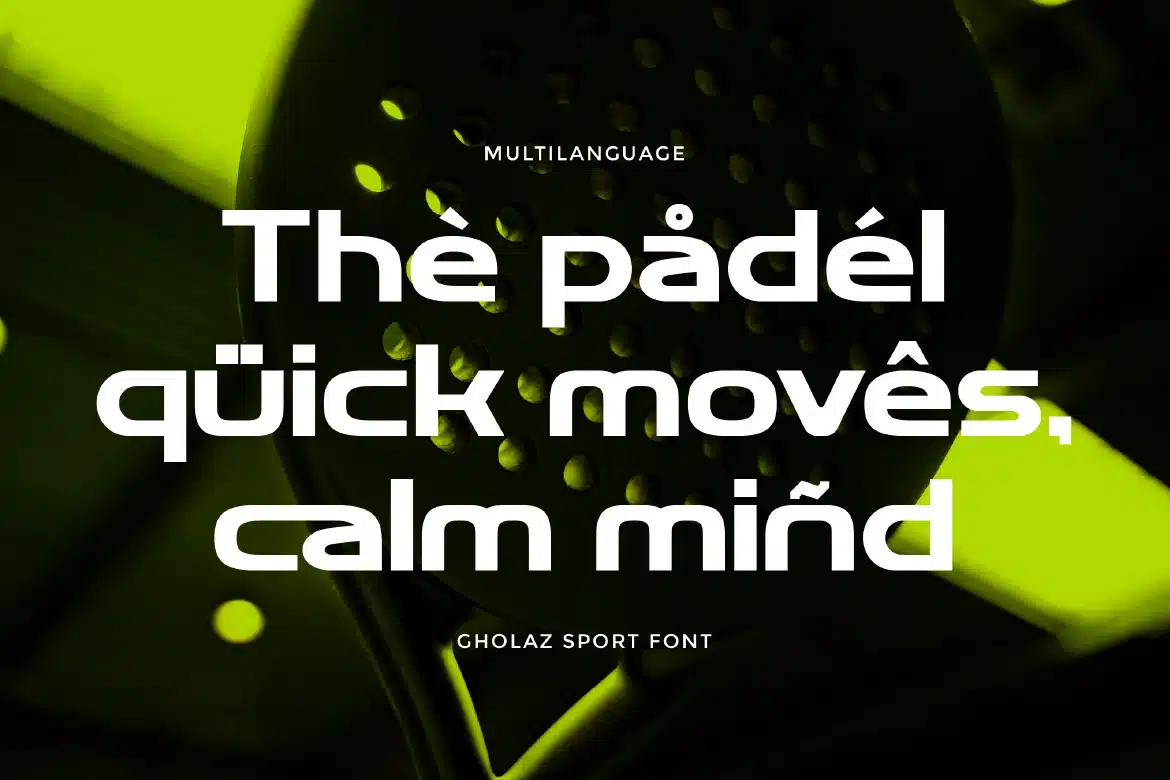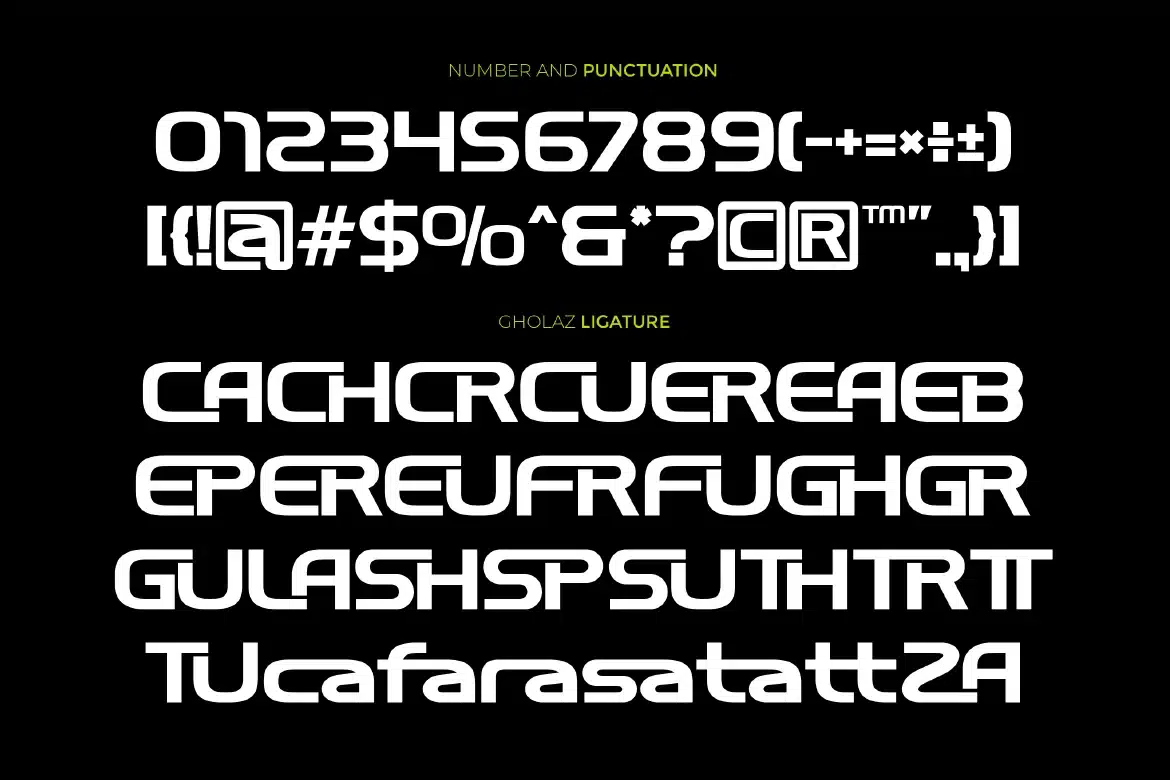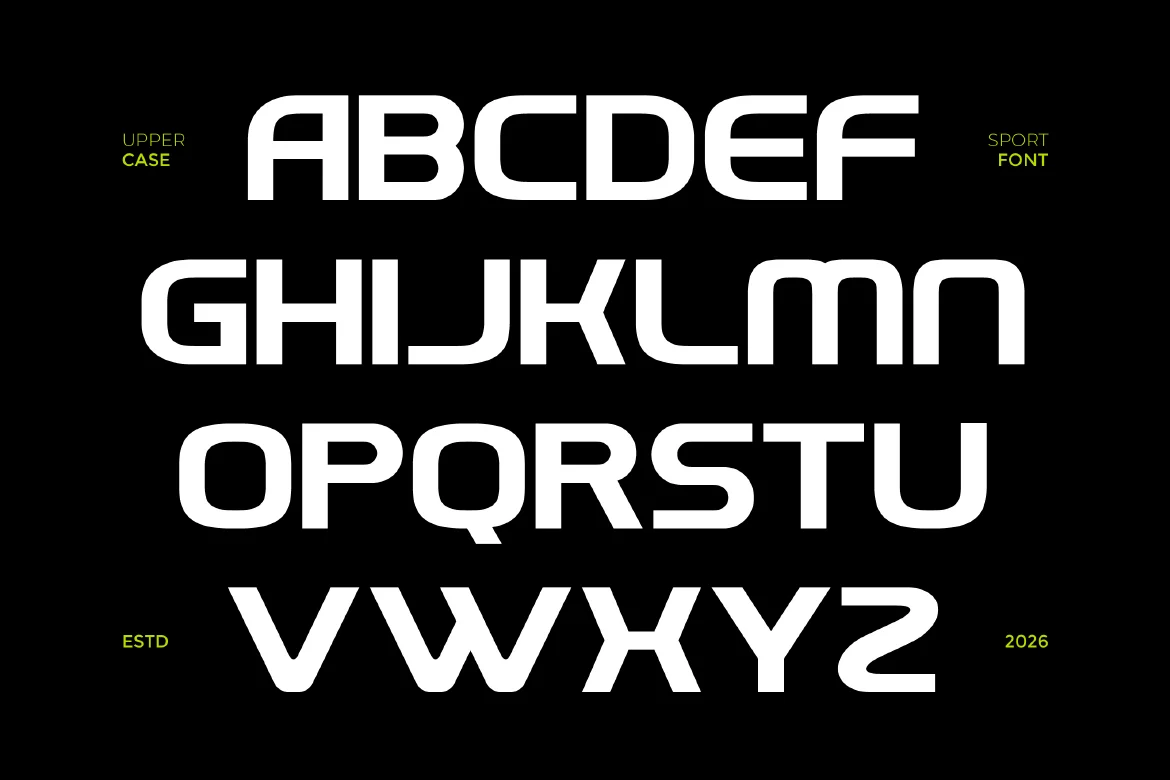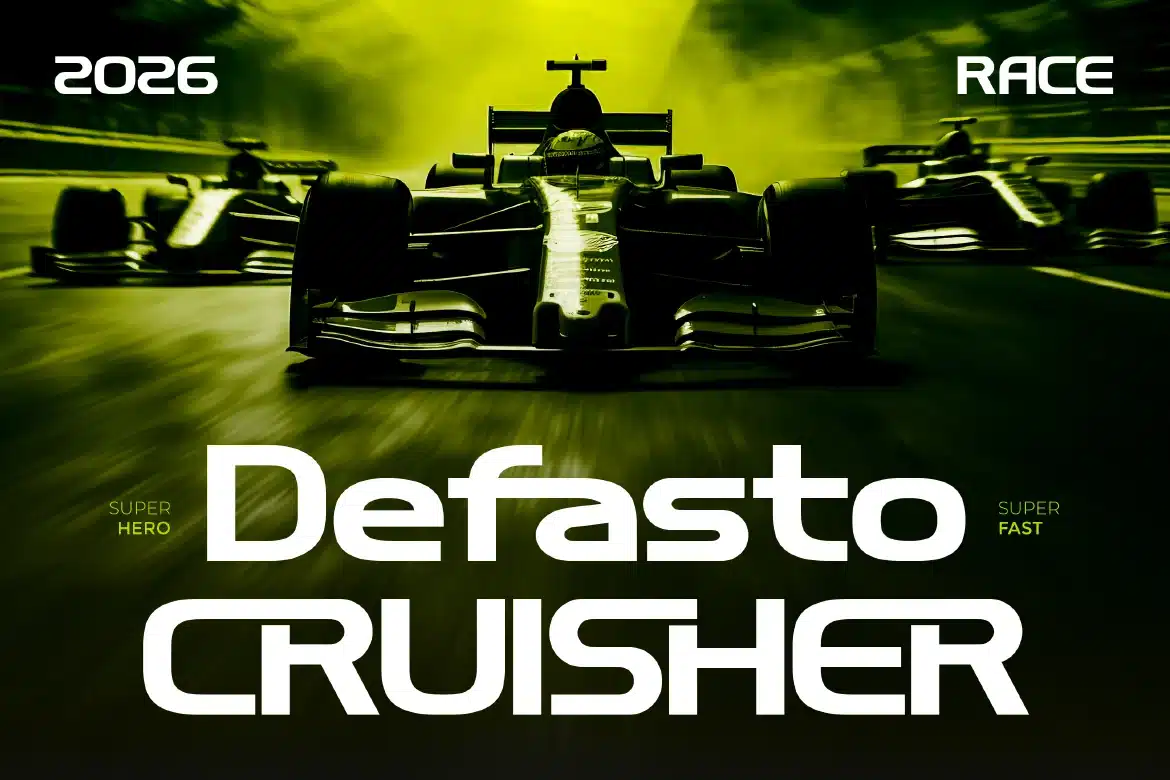
Modern Sport Display – Gholaz Font
Modern Sport Display - Gholaz
Gholaz is a bold modern sport display font crafted to deliver strength, energy, and a powerful visual impact. With its solid letterforms, sharp structure, and athletic-inspired design, Gholaz creates a dynamic typographic style that captures the spirit of competition and performance. The font features a strong and confident appearance, making it perfect for designs that need to stand out. Its modern construction ensures clarity and readability, while the bold weight adds intensity and presence across both digital and print applications.
Who Should Use Gholaz?
Gholaz is ideal for designers, creatives, and brands looking for a bold sport display font that delivers power, clarity, and modern athletic style.
Sports team logos and branding
Fitness and gym branding
Esports and gaming graphics
Posters and promotional materials
Advertising and marketing design
Social media graphics
Strong display typography